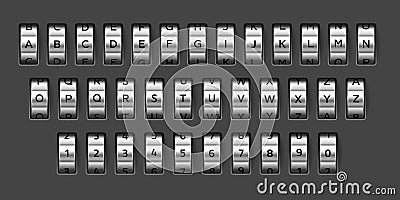
Combination Lock Font. Realistic Mechanical Code. Rotating Alphabet. Bank Safe Wheels Set With Letters And Numbers. Secret Options Vector Illustration
Combination lock font. Realistic mechanical code. Rotating alphabet. Bank safe wheels set with letters and numbers. Secret options #294955200
Combination lock font. Realistic mechanical code. Rotating alphabet. Bank safe metallic wheels set with letters and numbers. Secret options. Spinning elements kit. Vector vault opening signs variation